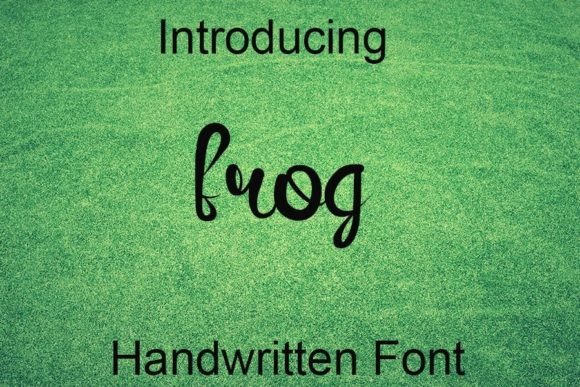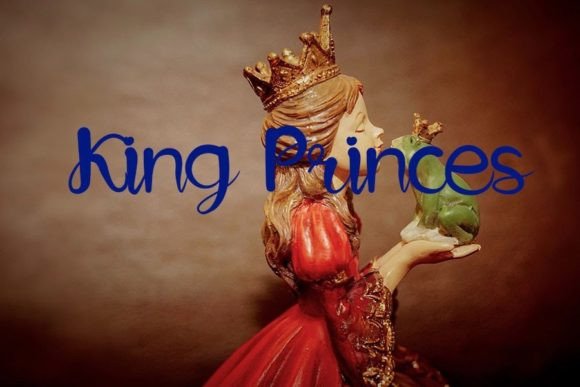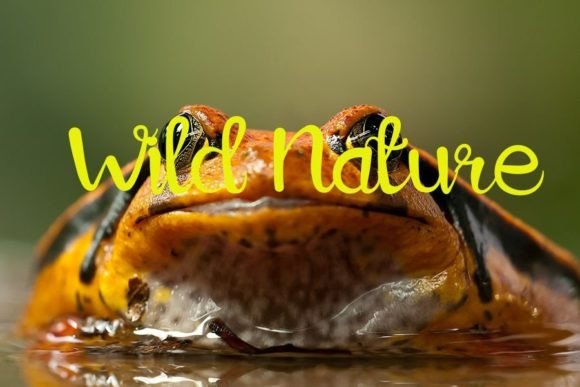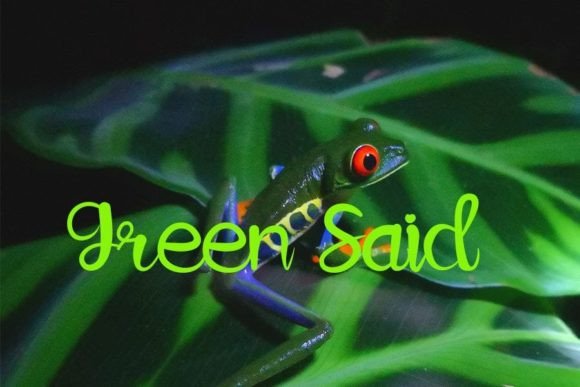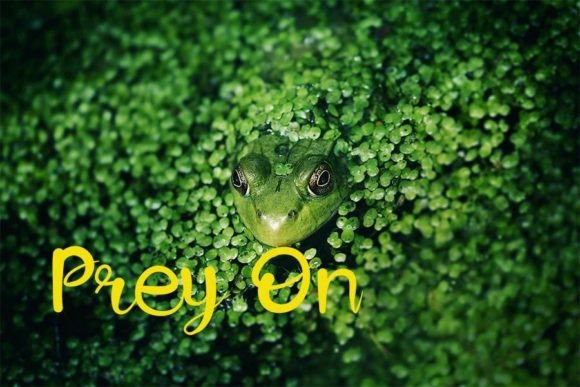
Frog Font
About Frog Font
Frog, a beautifully crafted handwritten font, is characterized by its neatness and elegance, making it a perfect choice for your favorite projects. This font is not only aesthetically pleasing but also boasts an incredibly distinct and timeless style that invites you to embrace its visual charm. Immerse yourself in the enchanting world of Frog and let it be the key to creating spectacular designs that resonate with a sense of sophistication.
The neat and well-defined nature of Frog lends it a polished appearance, ensuring clarity and legibility in various design applications. Each stroke is meticulously crafted, contributing to the overall elegance that sets Frog apart. This neatness makes Frog adaptable to a range of projects, from delicate invitations to professional branding.
The handwritten quality of Frog introduces a personal and organic touch to your designs. Its flowing strokes and gentle curves mimic the grace of handwriting, infusing warmth and character into your creative projects. This human touch adds a layer of authenticity, making Frog an excellent choice for designs that aim to connect on a personal level.
What makes Frog truly stand out is its distinct and timeless style. It goes beyond being a font; it becomes a visual statement. The uniqueness of Frog makes it memorable, allowing your designs to leave a lasting imprint in the minds of your audience. This distinctive style is a valuable asset in creating a brand identity that is both recognizable and enduring.
Frog’s timeless appeal ensures its relevance across different design trends and preferences. It doesn’t conform to passing fads but rather establishes itself as a classic choice. This versatility makes Frog a font that can seamlessly adapt to a variety of design projects, from contemporary to vintage-inspired.
Fall in love with Frog’s sophistication and embrace its distinctive style as you incorporate it into your creative endeavors. Whether you’re working on invitations, packaging, or any design project close to your heart, let Frog be the catalyst for creating designs that are not only spectacular but also eternally charming. Allow Frog to elevate your creative expressions with its elegant touch and timeless allure.